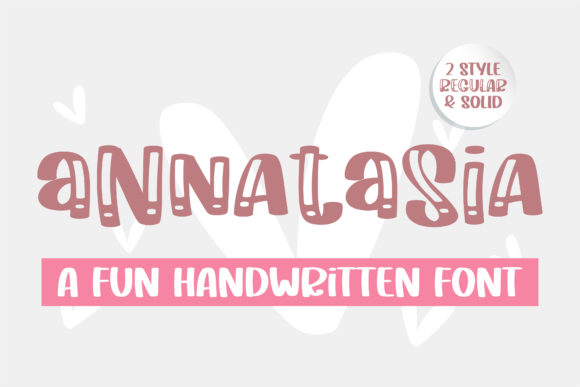
The Sweet Charm of Annatasia Font: A Designer’s Delight
I’ll never forget the time I was working on a craft project for a client’s birthday, and I just couldn’t find the perfect font to match the sweet and playful vibe of the design. The client wanted something that felt handmade, yet elegant and easy to read. That’s when I stumbled upon Annatasia Font, a beautiful handwritten font that instantly captured the essence of what I was looking for.
As I explored the font, I realized that Annatasia is more than just a pretty face – it’s a versatile and user-friendly font that’s perfect for a wide range of creative projects. In this article, I’ll share my honest review of Annatasia Font, provide a practical guide on how to use it, and explore similar fonts that you might love.
An Honest Review of Annatasia Font
- ✨ Sweet and playful vibe: Annatasia Font has a charming, handwritten feel that’s perfect for crafty projects, invitations, and social media graphics.
- ✅ Easy to read: Despite its playful nature, Annatasia Font is surprisingly easy to read, even in smaller sizes.
- 💕 Versatile: This font works beautifully with a variety of design styles, from rustic to elegant.
While Annatasia Font is an amazing addition to any design project, there are a few things to keep in mind:
- 🤔 Limited formal use: Due to its playful nature, Annatasia Font might not be the best choice for formal or professional projects.
- ⚠️ Kerning issues: As with any font, you might encounter kerning issues when pairing Annatasia with other fonts or using it in certain design contexts.
The Story Behind Annatasia Font
While I couldn’t find any information on the designer’s inspiration for Annatasia Font, I imagine that it was created with the intention of capturing the sweet and playful essence of handmade crafts. Perhaps the designer wanted to create a font that would make designers feel like they’re crafting something special, one letter at a time.
| Font Name | Annatasia Font |
| Author | BitongType |
Q: What type of projects is Annatasia Font best suited for?
A: Annatasia Font is perfect for crafty projects, invitations, social media graphics, and any design that requires a playful, handwritten feel.
Q: Is Annatasia Font easy to read?
A: Yes, Annatasia Font is surprisingly easy to read, even in smaller sizes. However, it’s still a handwritten font, so it may not be suitable for very small text or formal projects.
Q: Can I use Annatasia Font with other fonts?
A: Yes, Annatasia Font pairs beautifully with a variety of fonts. Experiment with different font combinations to find the perfect match for your design.